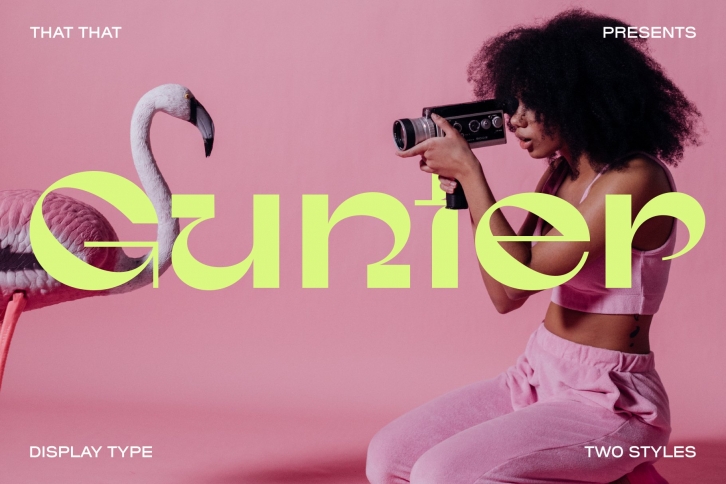
Gunter Display is a beautiful font that was designed by That That Creative. It's a great choice for designers and creatives who need such a font. It was released on June 28, 2021 and the file size is 3.12 MB. Gunter Display may give a more youthful, expressive and casual look to your project. It is a very beautiful, refined, elegant, and high-quality font.